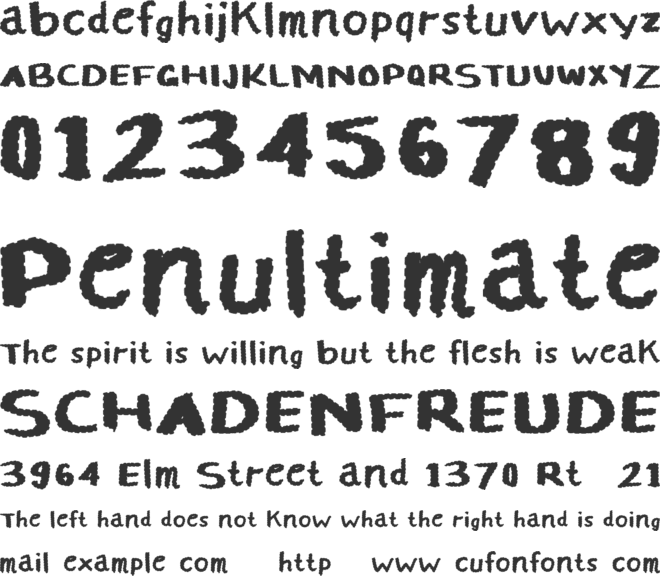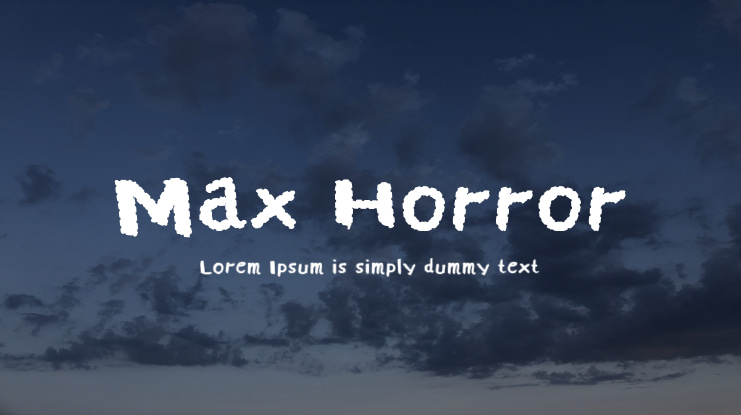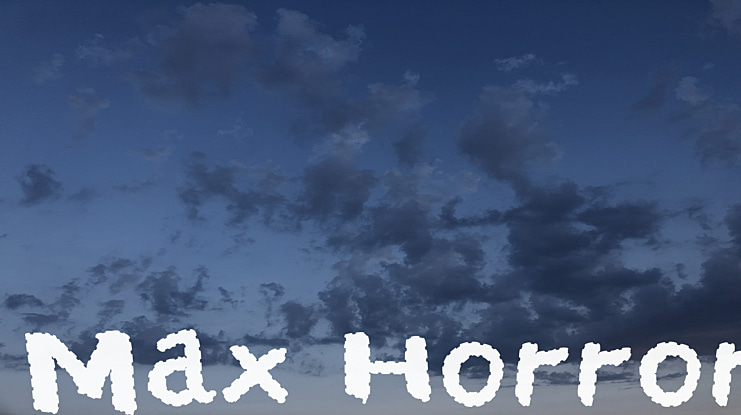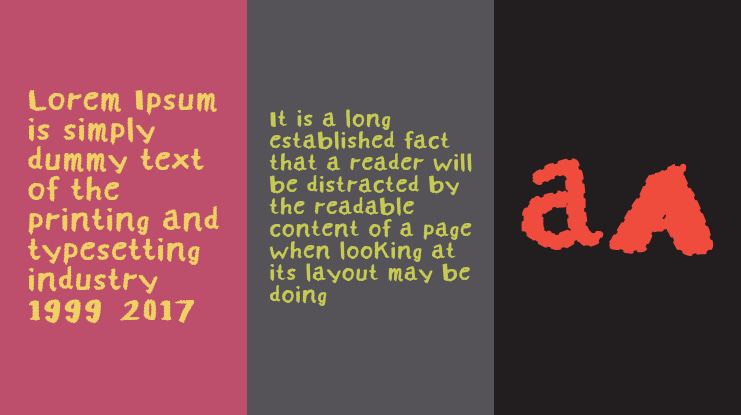
Max Horror Font
Max Horror is a hand-drawn horror font with rough and bold letters. It's great for logos, branding, print projects and any attention drawing headline. It included upper case and lowercase only.